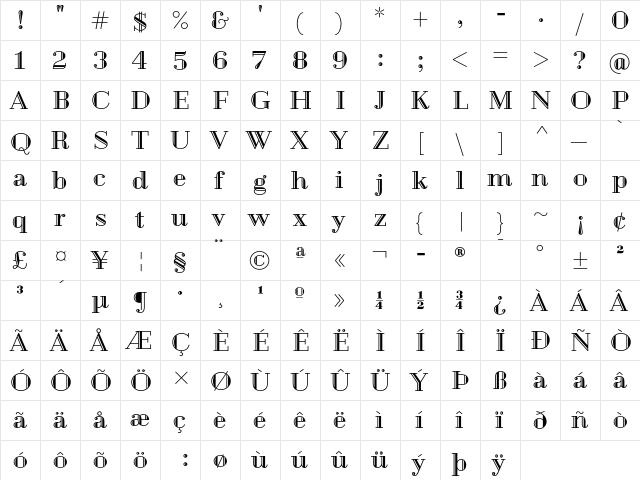
Geotica Four Engraved
| Style | Engraved |
| Foundry | Jos Buivenga |
| Designer | Jos Buivenga |
Design Context for Geotica Four Typeface
Geotica Four is built around its visual character rather than neutral utility — its distinctive forms are designed to make an impression at display sizes.
Font Pairing: Pair with a clean neutral sans-serif for body copy to let Geotica Four's character lead without overwhelming the composition.
Pro Tip: Treat Geotica Four as the centrepiece of your typographic hierarchy. One strong heading set in a decorative face can carry an entire layout.